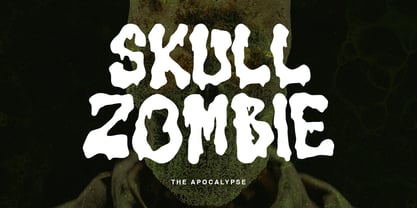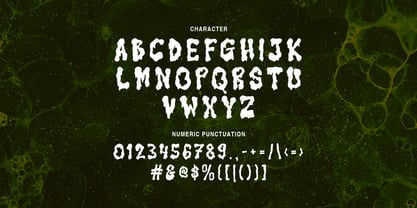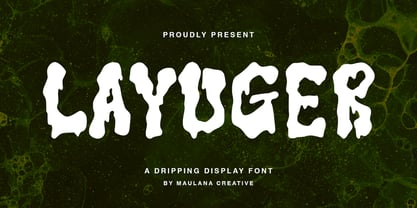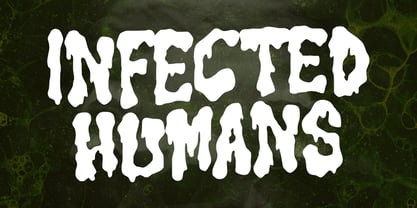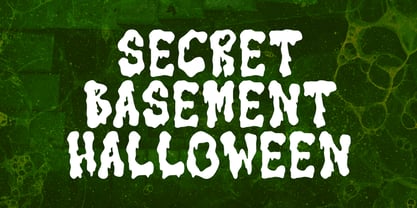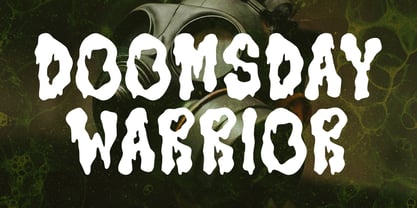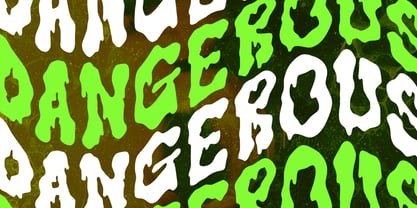
MC Layuger
by Maulana Creative
The MC Layuger Font Family was designed by Gilang Maulana and published by Maulana Creative. MC Layuger contains 1 styles. More about this family
Layuger is a horror display font with a unique, creepy dripping effect. It's perfect for horror, zombie, apocalypse, thriller, Halloween, and sci-fi post-apocalyptic design projects. Its fluid-textured letterforms, reminiscent of dripping blood or slime, create a terrifying yet artistic feel. With its bold, unique characters and eerie atmosphere, Layuger will make your designs stand out and make an impression.
Layuger is a creepy dripping display horror font with a creepy style, suitable for Halloween designs, zombie designs, thriller films, and apocalypse-themed branding.
- Horror or thriller movie design
- Zombie, sci-fi, or survival design
- Dark and gothic-themed branding
- Halloween events, haunted houses, and escape rooms